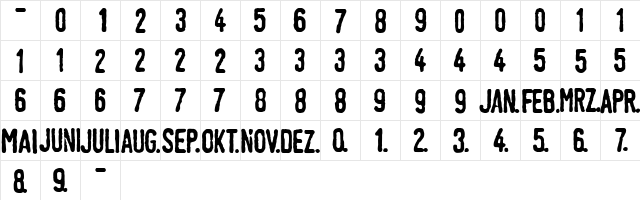
LinotypeTagesstempel Mager Regular
Design Context for LinotypeTagesstempel Mager Typeface
LinotypeTagesstempel Mager offers clean, dependable letterforms without strong stylistic allegiance, making it a practical choice for designers who need flexibility.